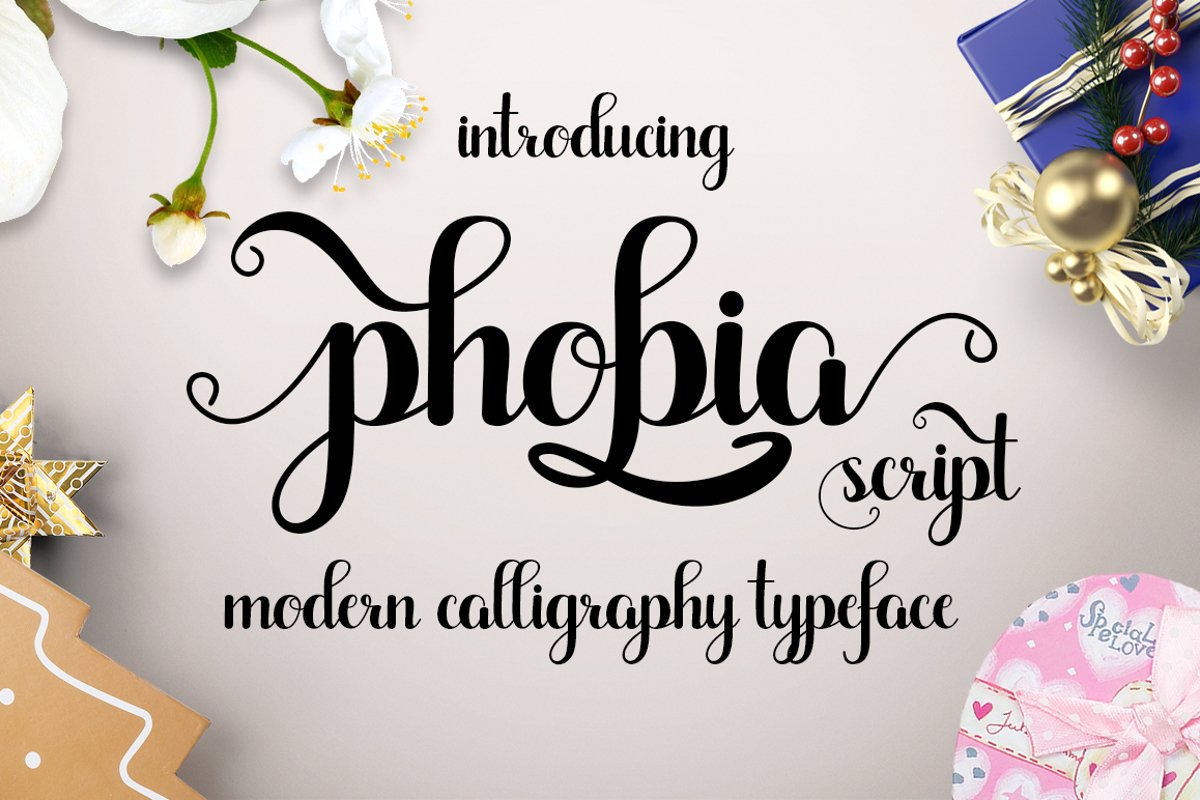
Phobia
Script a fresh & modern script with a handmade calligraphy style,
decorative characters and a dancing baseline! So beautiful on invitation like
greeting cards, branding materials, business cards, quotes, posters, and more!!
Phobia Script comes with 398 glyphs.